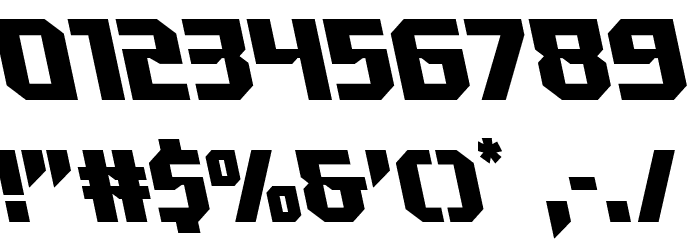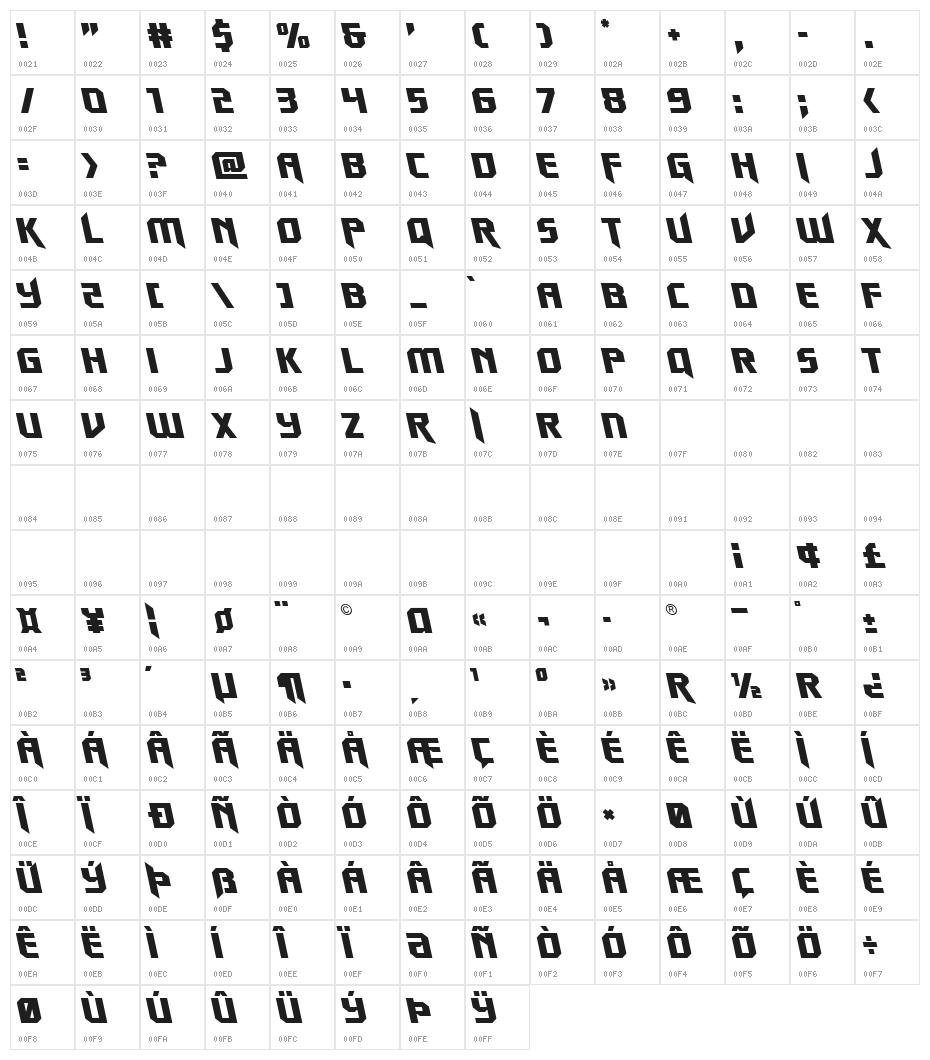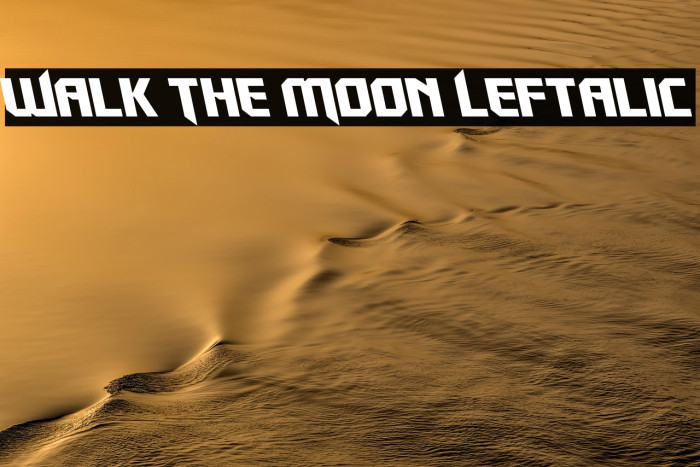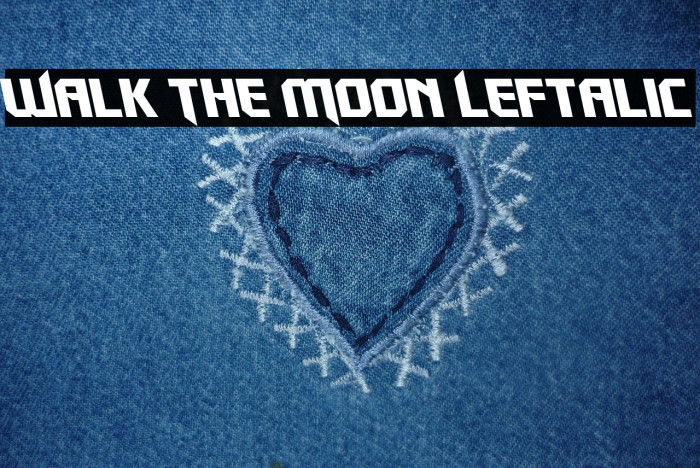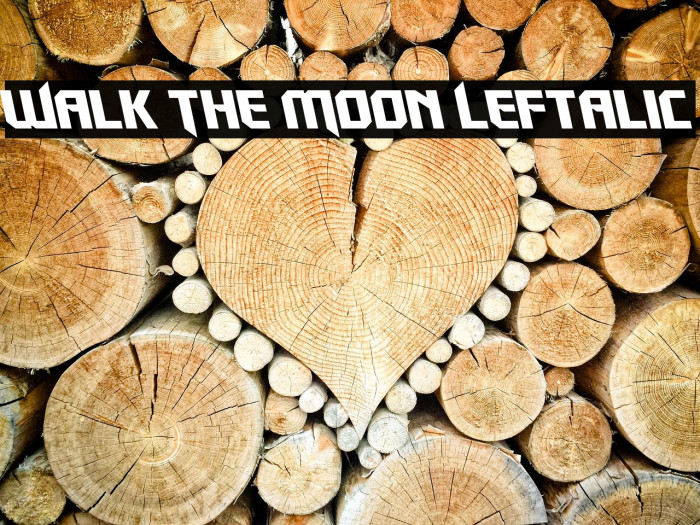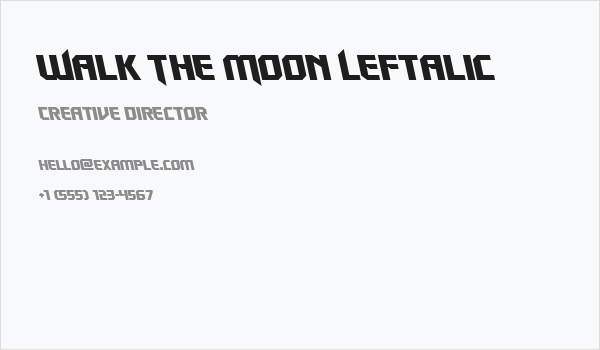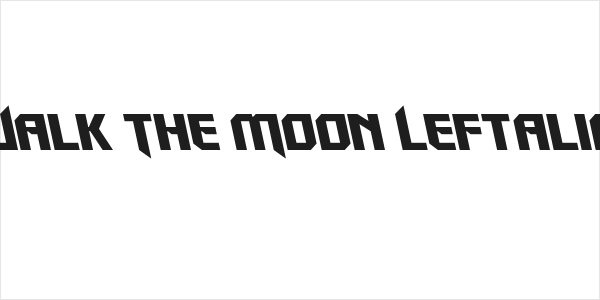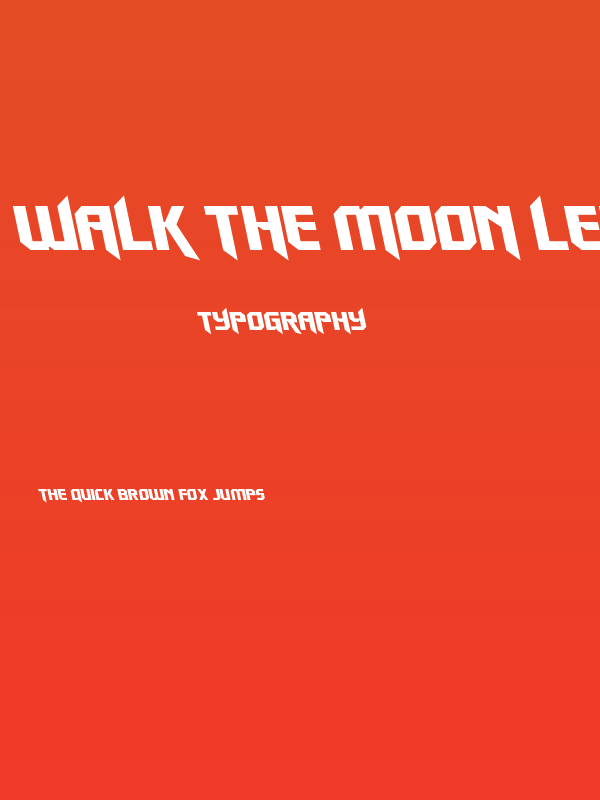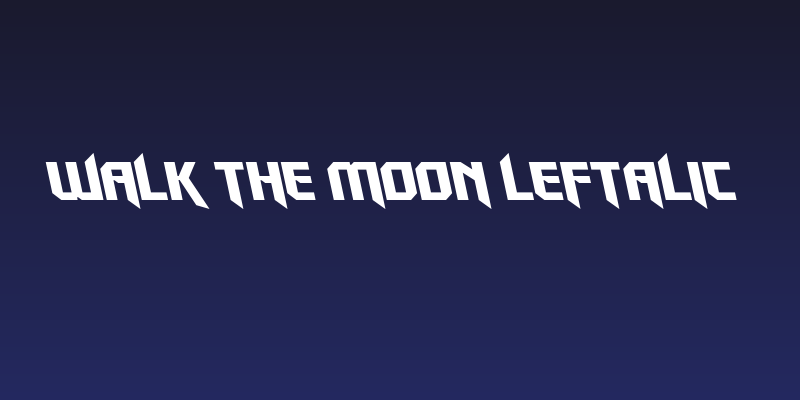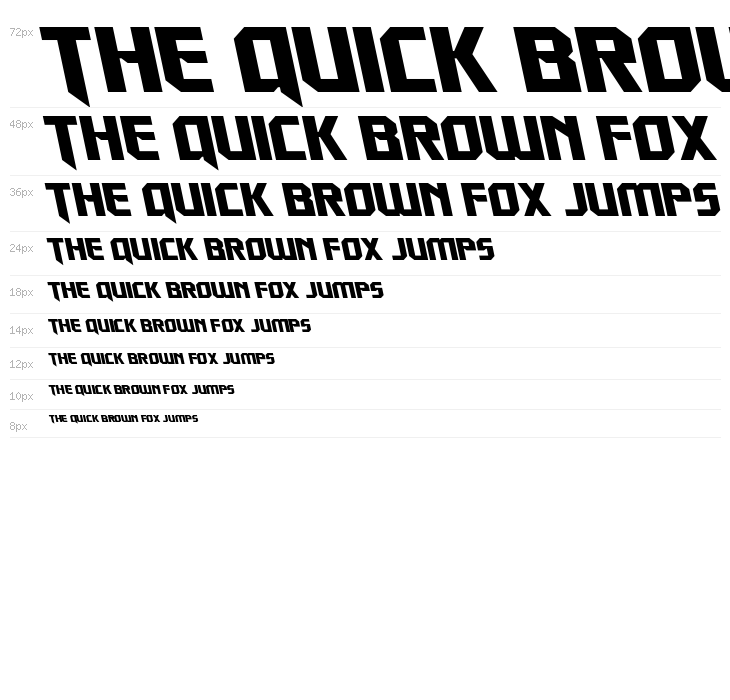
Walk The Moon Leftalic Font
Walk The Moon Leftalic Description
This font features a bold and angular design with a futuristic and geometric aesthetic. The characters are sharply cut with distinct edges, creating a dynamic and energetic appearance. The uppercase and lowercase letters maintain a consistent style, with a slight slant that adds a sense of movement. The numbers and special characters follow the same angular theme, ensuring uniformity across all elements. The font's unique style makes it stand out, ideal for projects that require a modern and edgy look.
| Proposed Projects | Ideal for branding, posters, album covers, and video game graphics. |